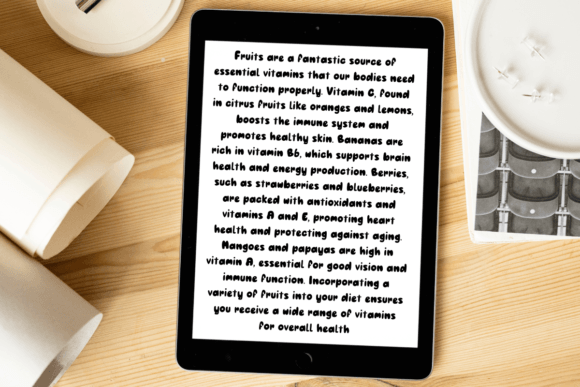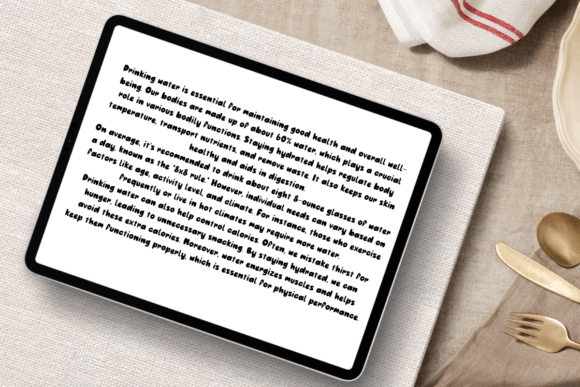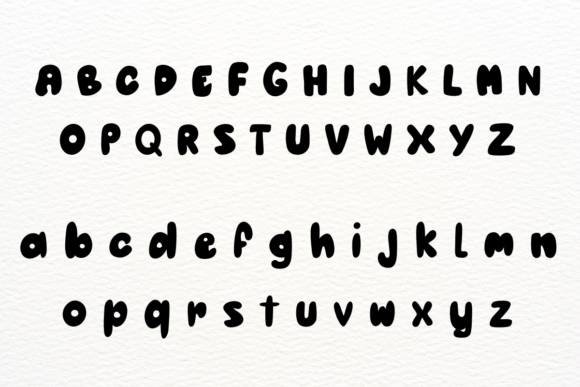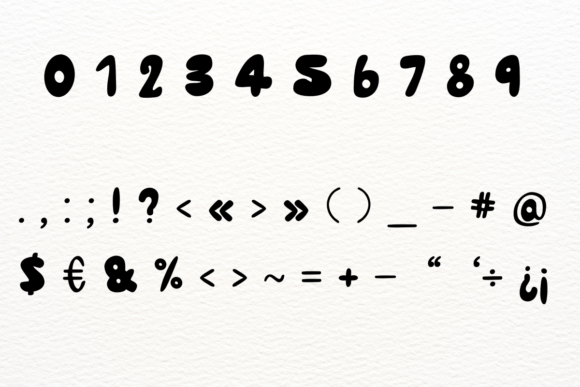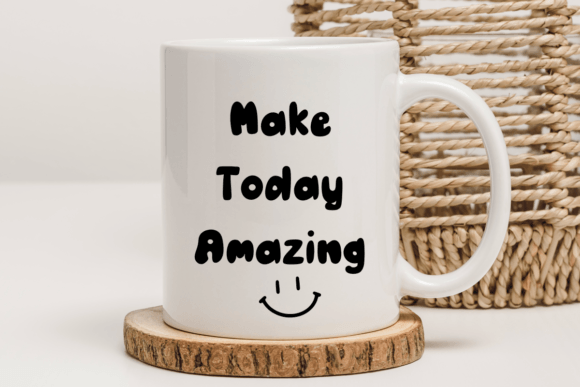
Discover the Charm of Bonnie Nuit Font: Elevate Your Designs with a Cute Handwritten Sans Serif Font
Are you on the hunt for a font that can add a touch of whimsy and personality to your designs? Look no further than the Bonnie Nuit Font, a delightful handwritten sans serif font that is sure to capture your heart. With its incredibly distinct and timeless style, Bonnie Nuit is the perfect choice for designers and crafters looking to create spectacular designs for various occasions.
What Makes Bonnie Nuit Font So Special?
Bonnie Nuit Font is a cute and charming handwritten sans serif font that boasts a unique and stylish aesthetic. Its distinct and timeless style makes it an excellent choice for a wide range of design projects, from Easter and back to school designs to wedding and party decorations, invitations, and more. The font’s playful and carefree vibe is sure to add a touch of personality to your designs, making them stand out from the crowd.
Endless Design Possibilities with Bonnie Nuit Font
One of the best things about Bonnie Nuit Font is its versatility. This amazing font can be used to create a wide range of designs, including:
- Easter designs: Create adorable Easter-themed designs, such as egg decorations, bunny invitations, and spring-inspired posters.
- Back to school designs: Design eye-catching back to school materials, such as flyers, posters, and worksheets.
- Wedding designs: Add a touch of whimsy to your wedding designs, including invitations, decorations, and ceremony programs.
- Party decorations: Create festive party decorations, such as banners, garlands, and centerpieces.
- Invitations: Design beautiful and unique invitations for any occasion.
- Fall designs: Get into the autumn spirit with cozy fall-themed designs, such as leaf-inspired posters and pumpkin decorations.
- Halloween designs: Create spooky and fun Halloween designs, including ghostly decorations and pumpkin carvings.
- Christmas designs: Spread holiday cheer with festive Christmas designs, such as tree decorations and holiday cards.
- Posters: Design eye-catching posters for any occasion.
- Blogs: Add a personal touch to your blog with Bonnie Nuit Font.
- Clothing: Design custom clothing, such as t-shirts and hoodies, with this adorable font.
- Child-related designs: Create delightful designs for kids, including children’s book illustrations and nursery decor.
- Greeting cards: Design beautiful and heartfelt greeting cards for any occasion.
- Cloth bag designs: Add a touch of personality to your cloth bag designs.
- Mug designs: Create fun and unique mug designs.
- Social media posts: Elevate your social media posts with this charming font.
Why Designers and Crafters Love Bonnie Nuit Font
Designers and crafters adore Bonnie Nuit Font for its unique and charming style. Here are just a few reasons why:
- Easy to read: Bonnie Nuit Font is clear and easy to read, making it perfect for designs that require a personal touch.
- Versatile: This font can be used for a wide range of design projects, from digital designs to print materials.
- Unique: Bonnie Nuit Font boasts a distinct and timeless style that will set your designs apart from the crowd.
- Cute and playful: This font is perfect for designers and crafters who want to add a touch of whimsy and personality to their designs.
Get Creative with Bonnie Nuit Font
Whether you’re a designer or crafter, Bonnie Nuit Font is the perfect choice for your next project. With its charming and playful style, this font is sure to inspire your creativity and help you create designs that you’ll love. So why wait? Fall in love with Bonnie Nuit Font and start creating spectacular designs today!
In conclusion, Bonnie Nuit Font is a must-have for designers and crafters looking to add a touch of personality and whimsy to their designs. With its incredibly distinct and timeless style, this cute handwritten sans serif font is perfect for a wide range of design projects. So go ahead, get creative, and see what amazing designs you can create with Bonnie Nuit Font!